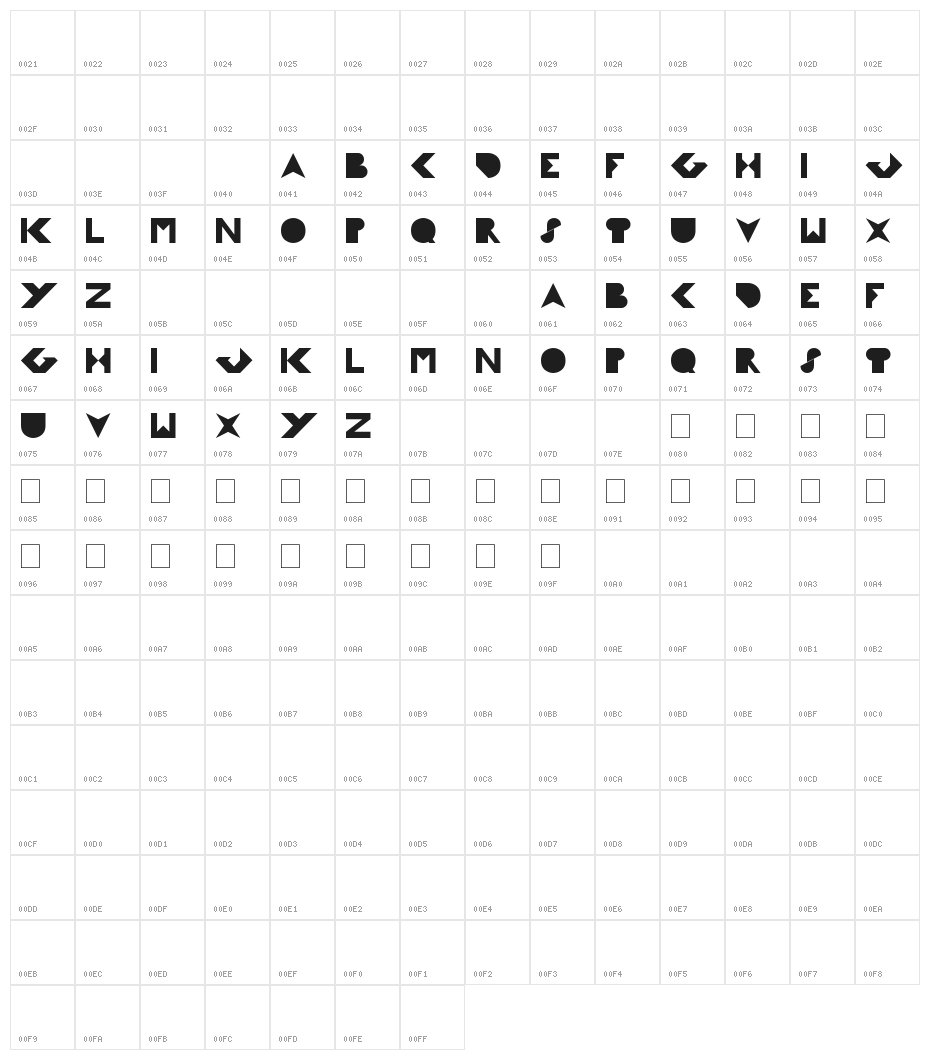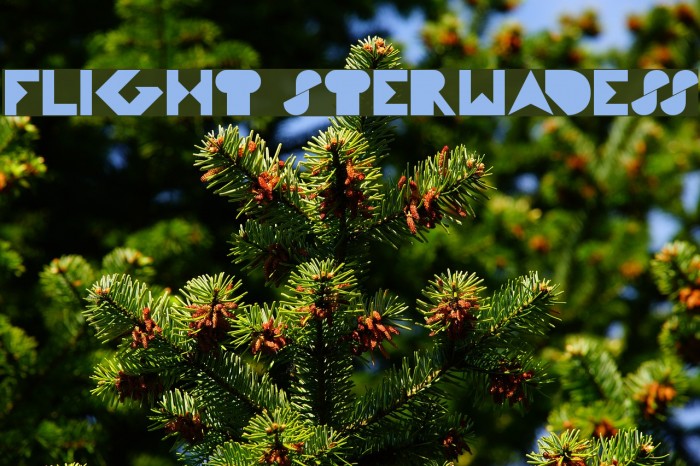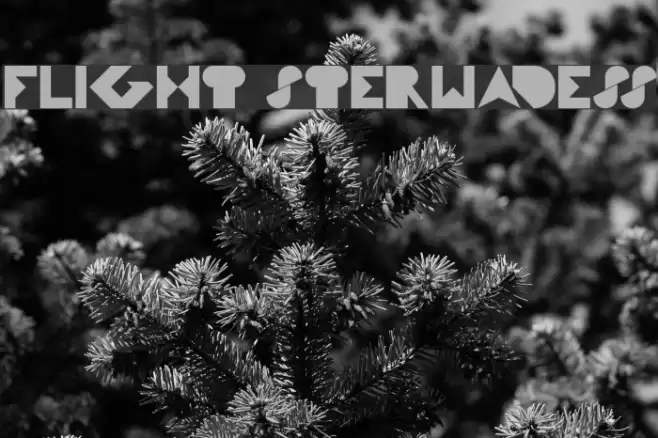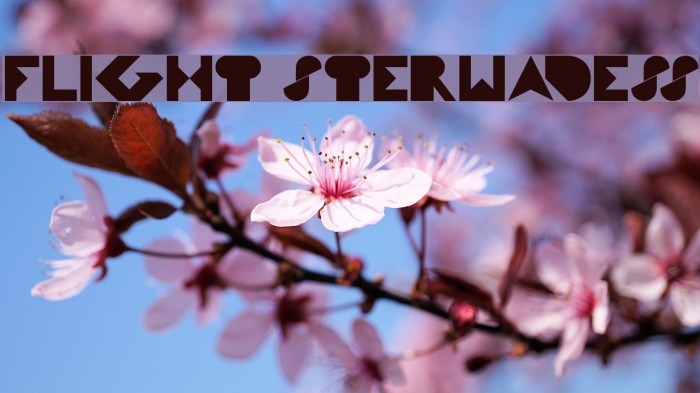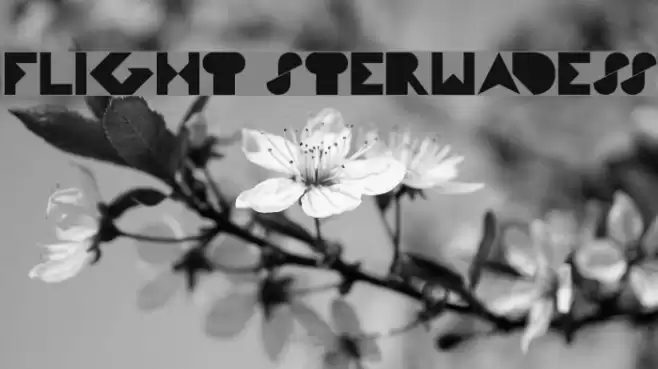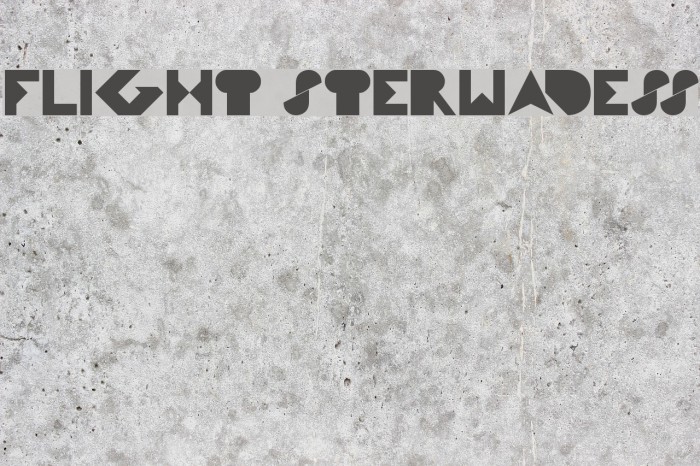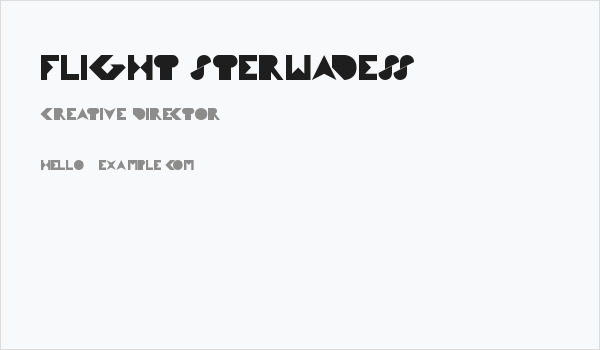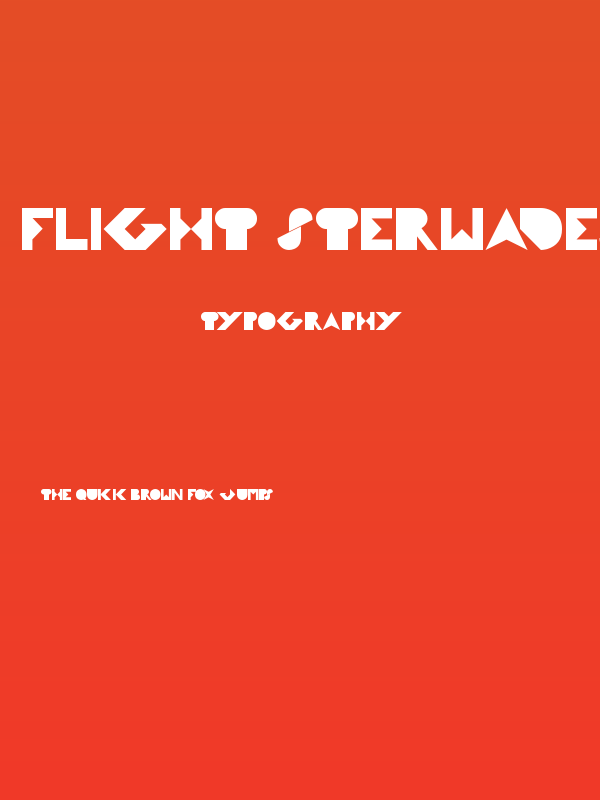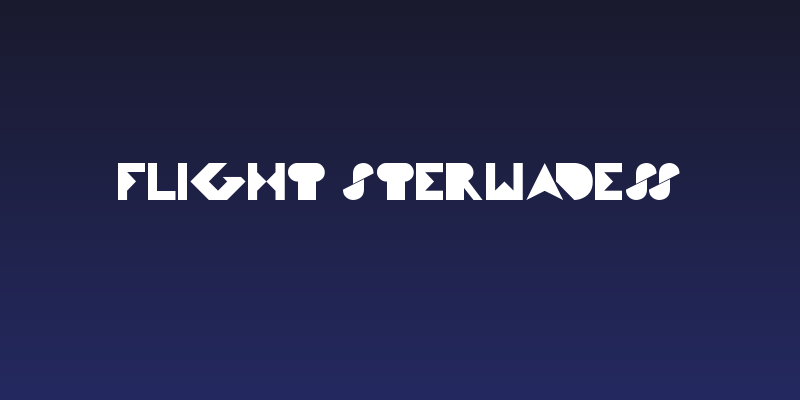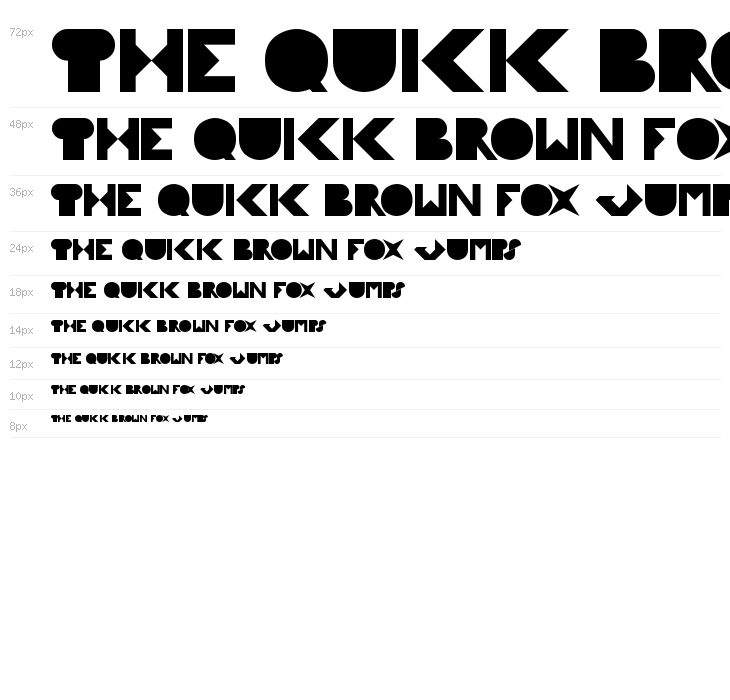
FLIGHT STERWADESS Font
FLIGHT STERWADESS Description
This font features a bold, geometric design with sharp angles and a futuristic aesthetic. The characters are constructed with a combination of straight lines and pointed edges, creating a dynamic and striking appearance. The uppercase letters are particularly distinctive, with some characters incorporating unique cutouts and angular shapes that enhance the modern feel. The overall style is reminiscent of science fiction themes, making it ideal for projects that require a bold and unconventional look.
| Proposed Projects | Ideal for sci-fi themed posters, video game titles, futuristic branding, and any project requiring a bold, modern aesthetic. |